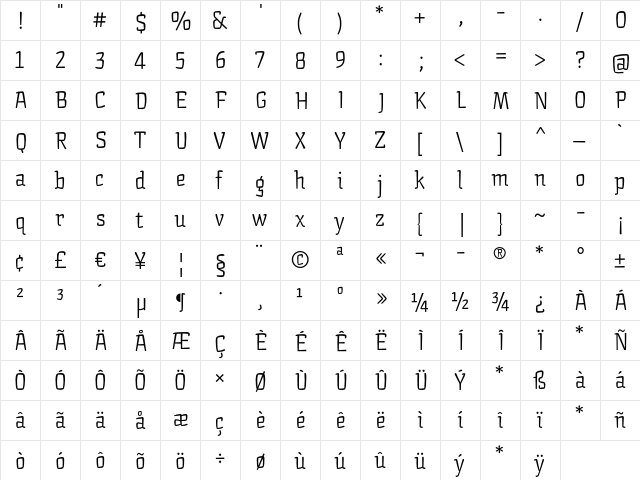
Arctic Light
| Foundry | Henning Skibbe |
| Designer | Henning Skibbe |
Design Context for Arctic Typeface
Arctic takes a measured approach to typography — its balanced proportions and neutral character make it a reliable workhorse for both digital and print work. Its slender proportions lend an understated elegance to any composition.